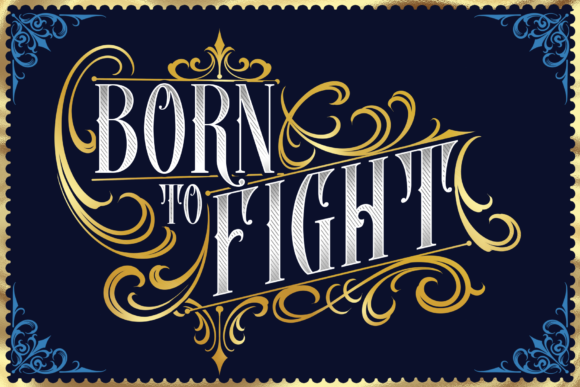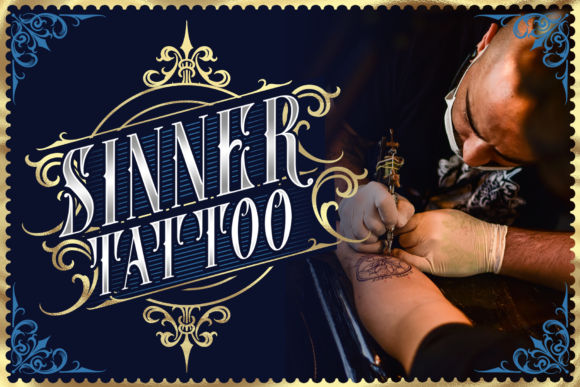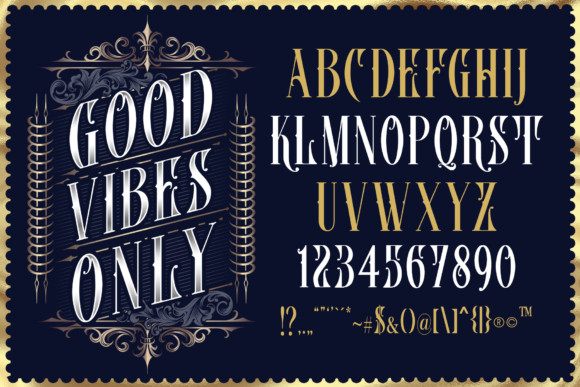
Firebirds Font: Victorian Blackletter for Vintage Logo Design
About the Firebirds Font
From logos to headlines, the Firebirds Font is the perfect choice for making a lasting impression. Firebirds is an authentic, victorian styled blackletter font. It has a vintage feel, and as a result, it matches a wide variety of designs. Add it confidently to your projects, and you will love the results.
Firebirds excels in display applications such as logos, headlines, and short textual elements on posters or packaging. Its strong verticality and decorative flourishes make it unsuitable for body text or UI elements where readability is paramount. Long blocks of text set in Firebirds would be extremely difficult to read.
The font’s personality is bold and assertive, conveying a sense of vintage elegance and perhaps even a touch of rebellion. It works exceptionally well for brands aiming for a sophisticated, historical, or slightly edgy aesthetic. Consider pairing it with a clean sans-serif like Montserrat for contrast and improved readability in supporting text, or a delicate script font like Great Vibes for a touch of whimsicality.
A geometric sans-serif like Futura would also provide a strong counterpoint to Firebirds’ organic forms, creating a visually interesting and balanced composition. Avoid pairing it with other highly decorative fonts, as this can lead to visual clutter and decreased legibility.